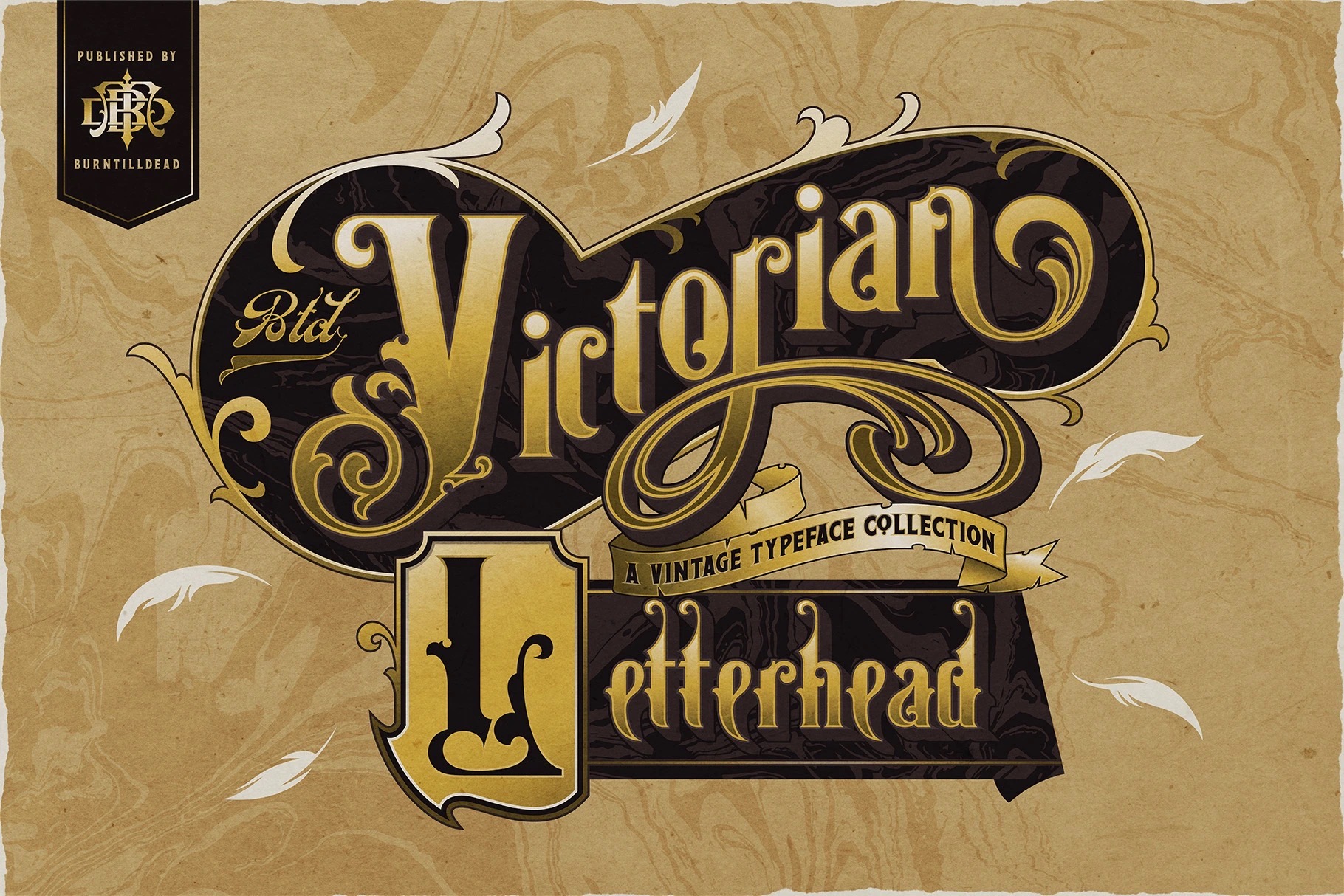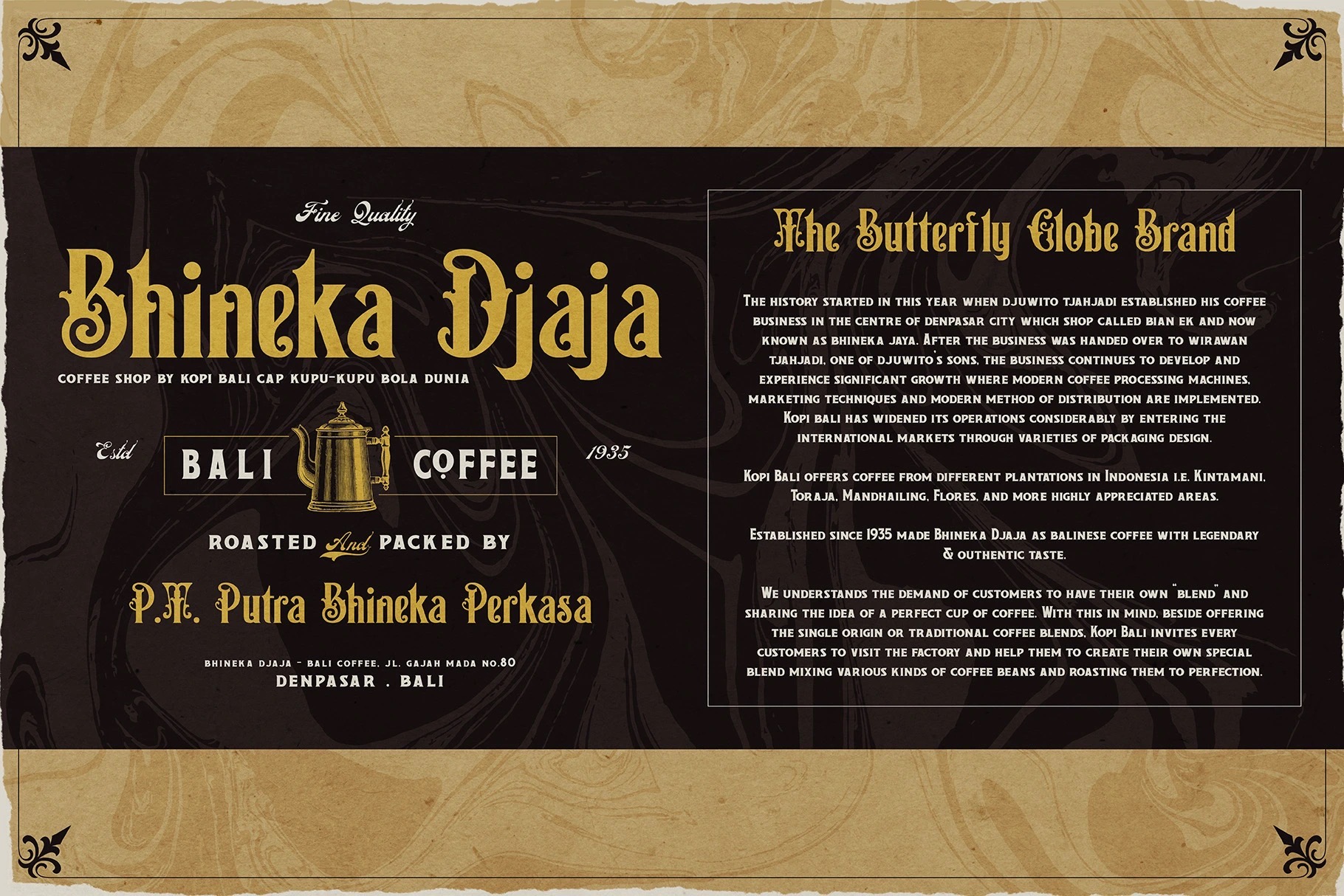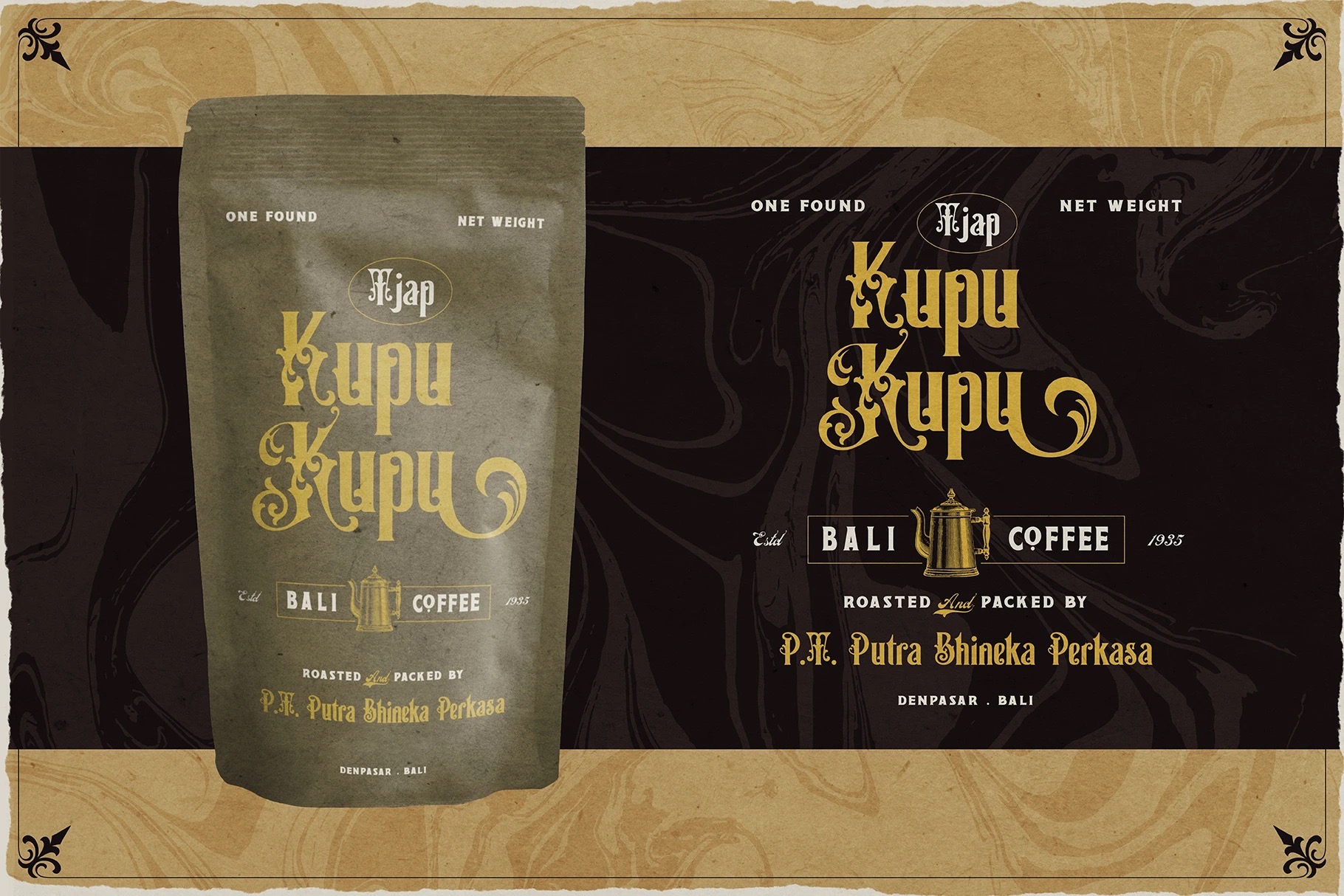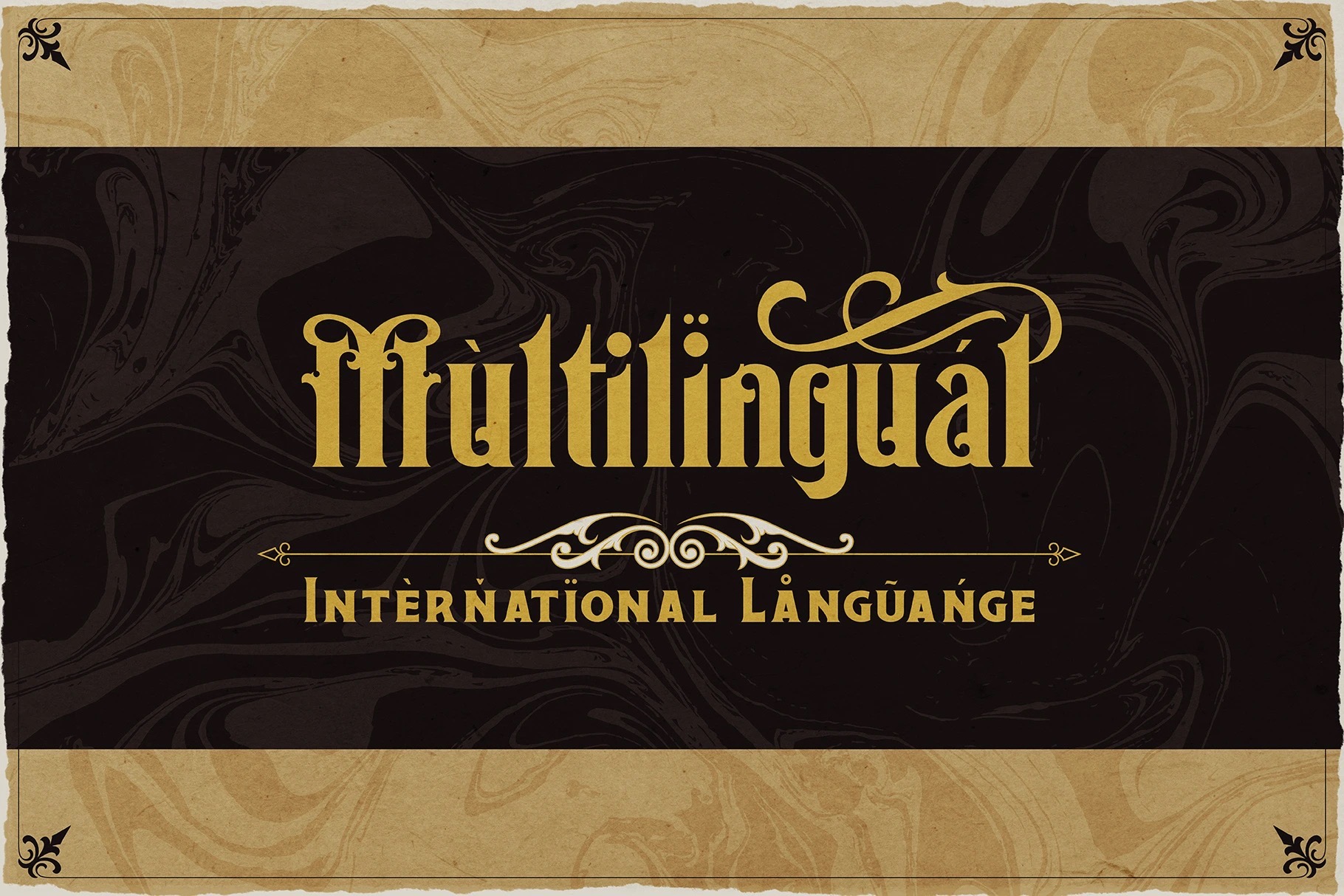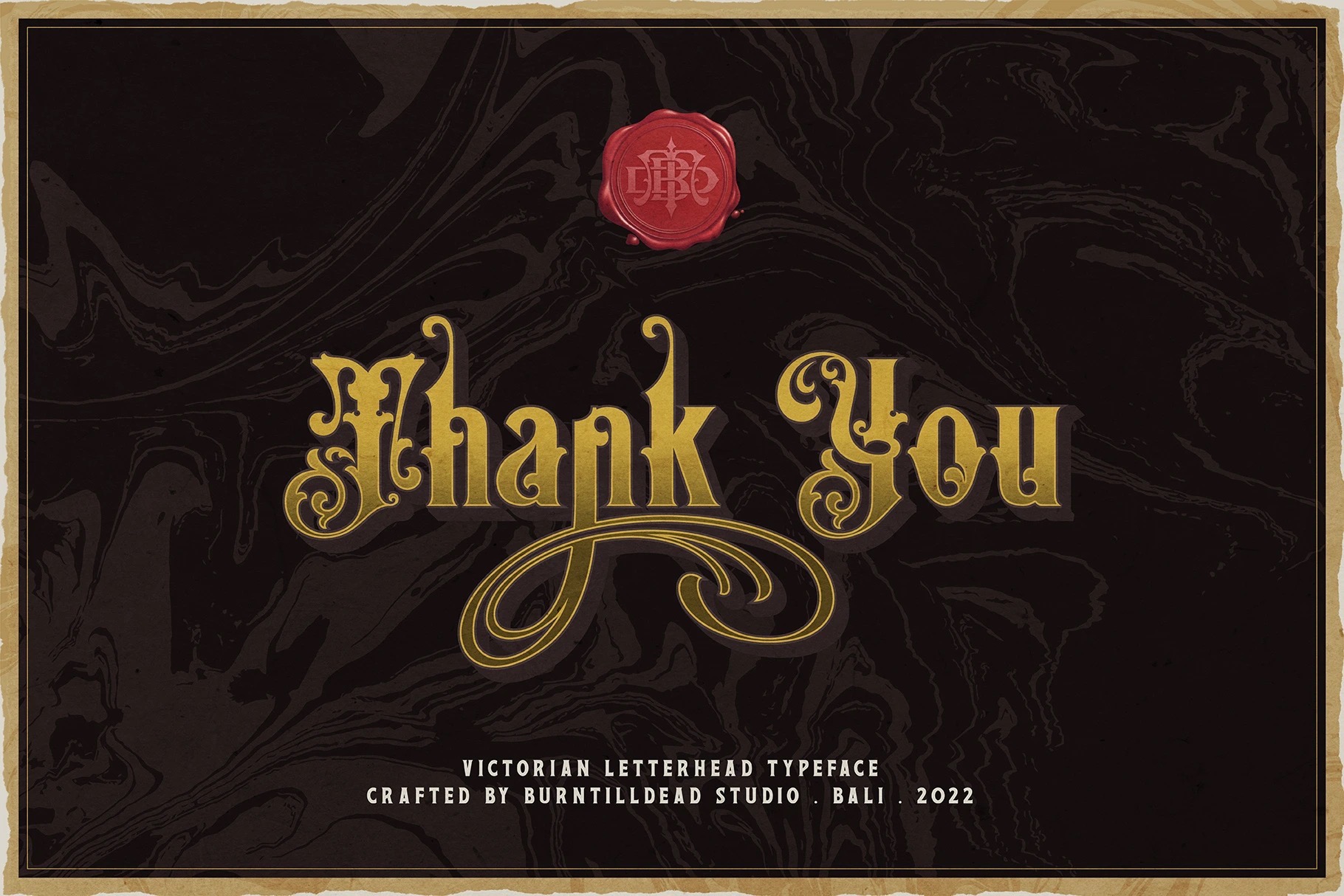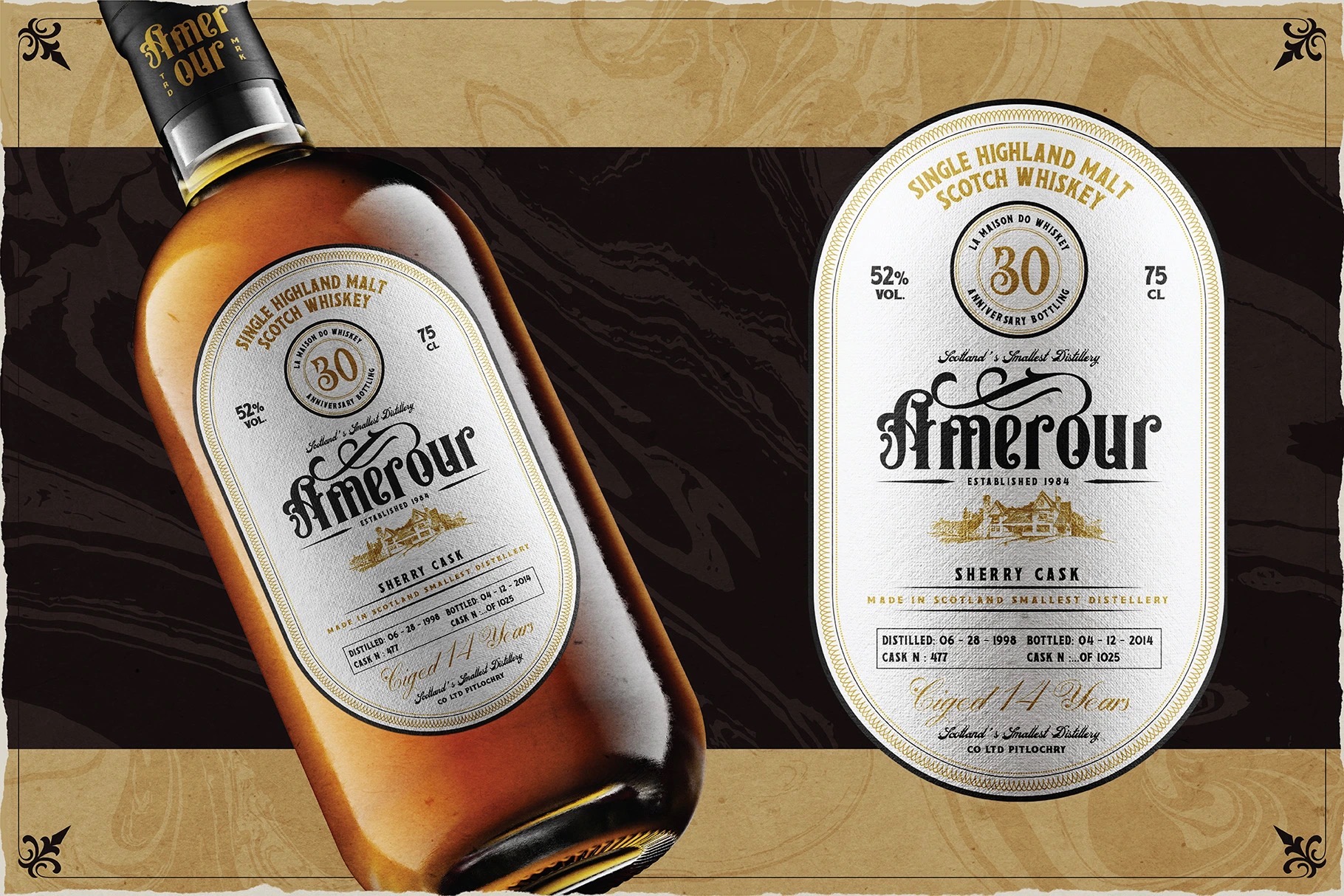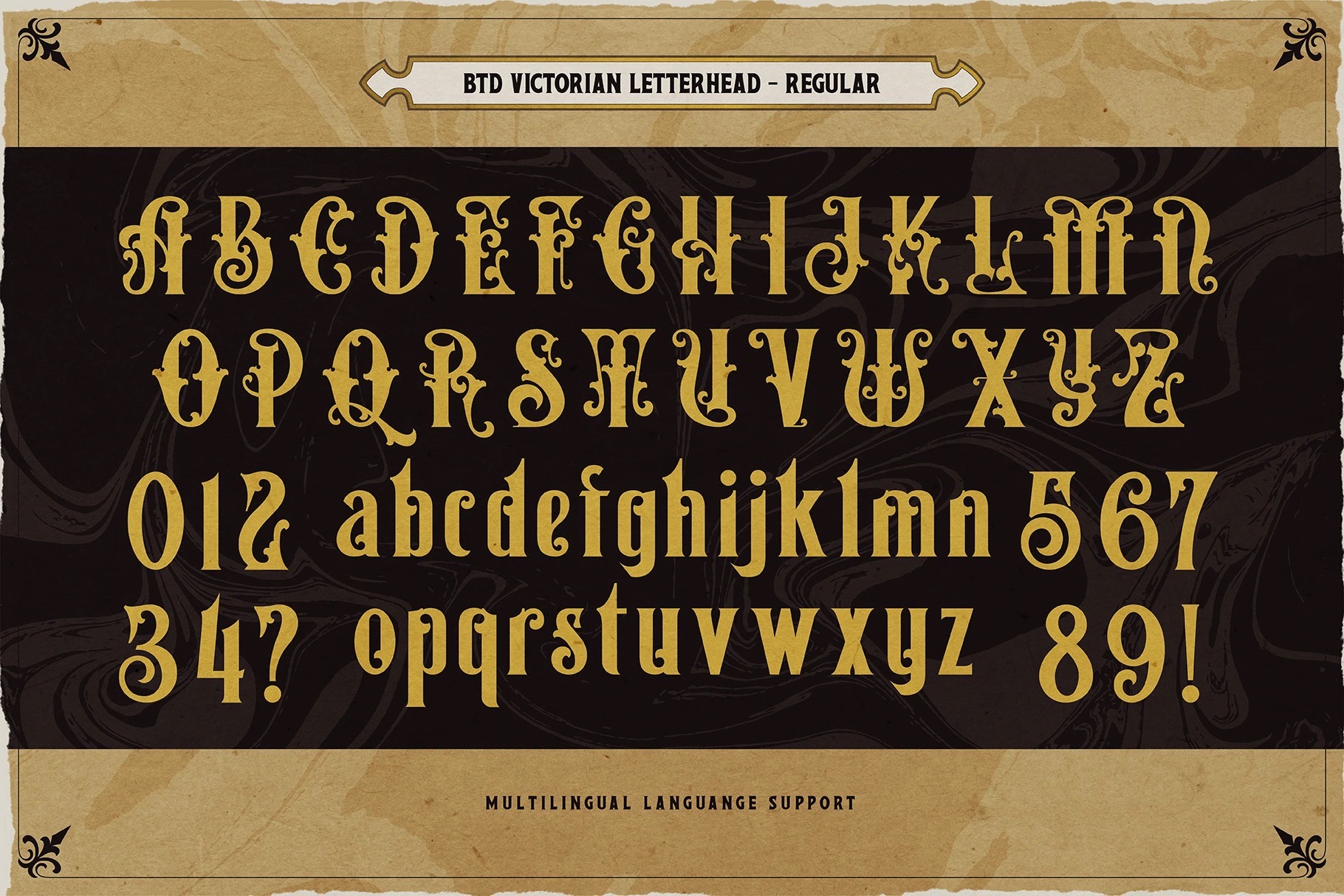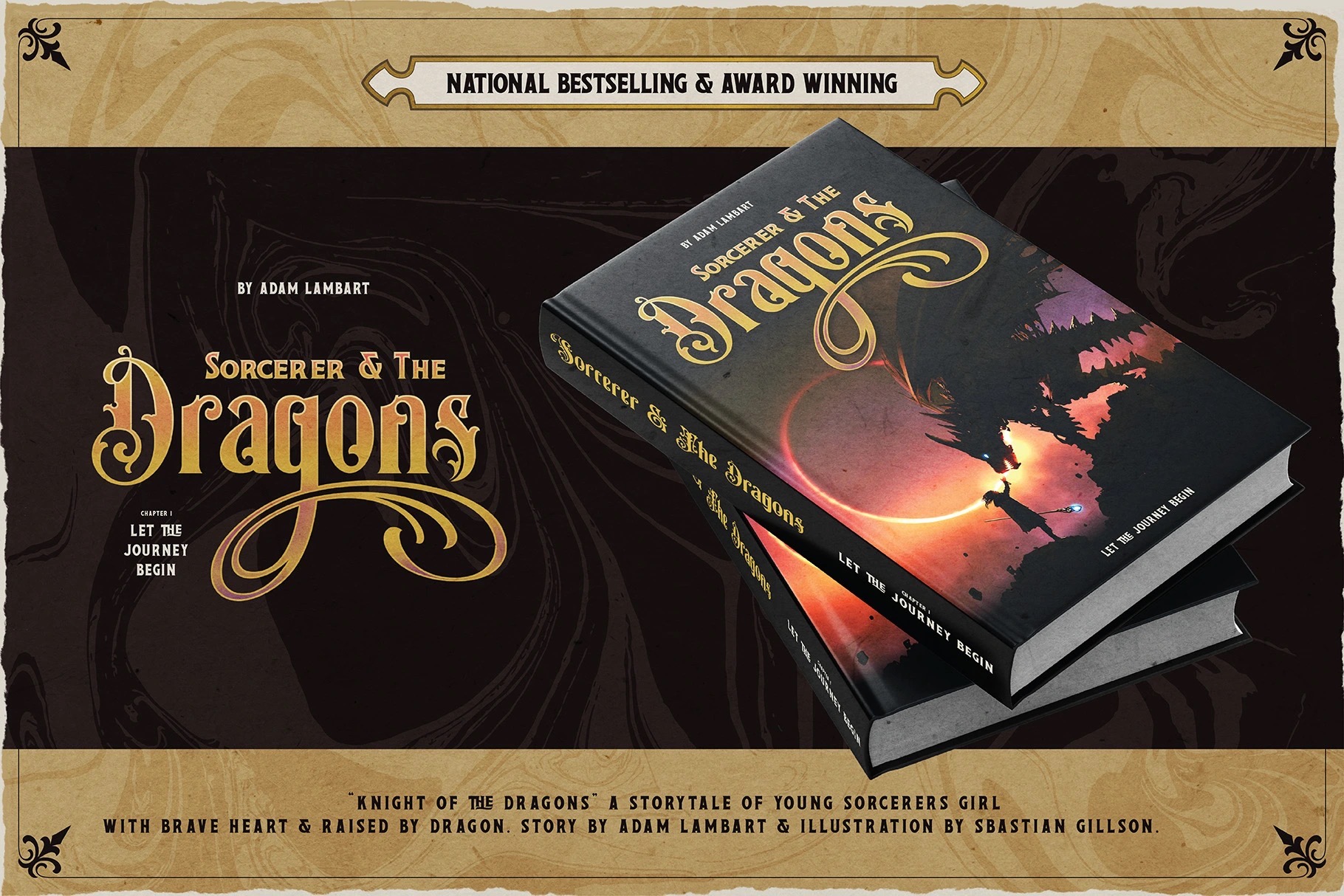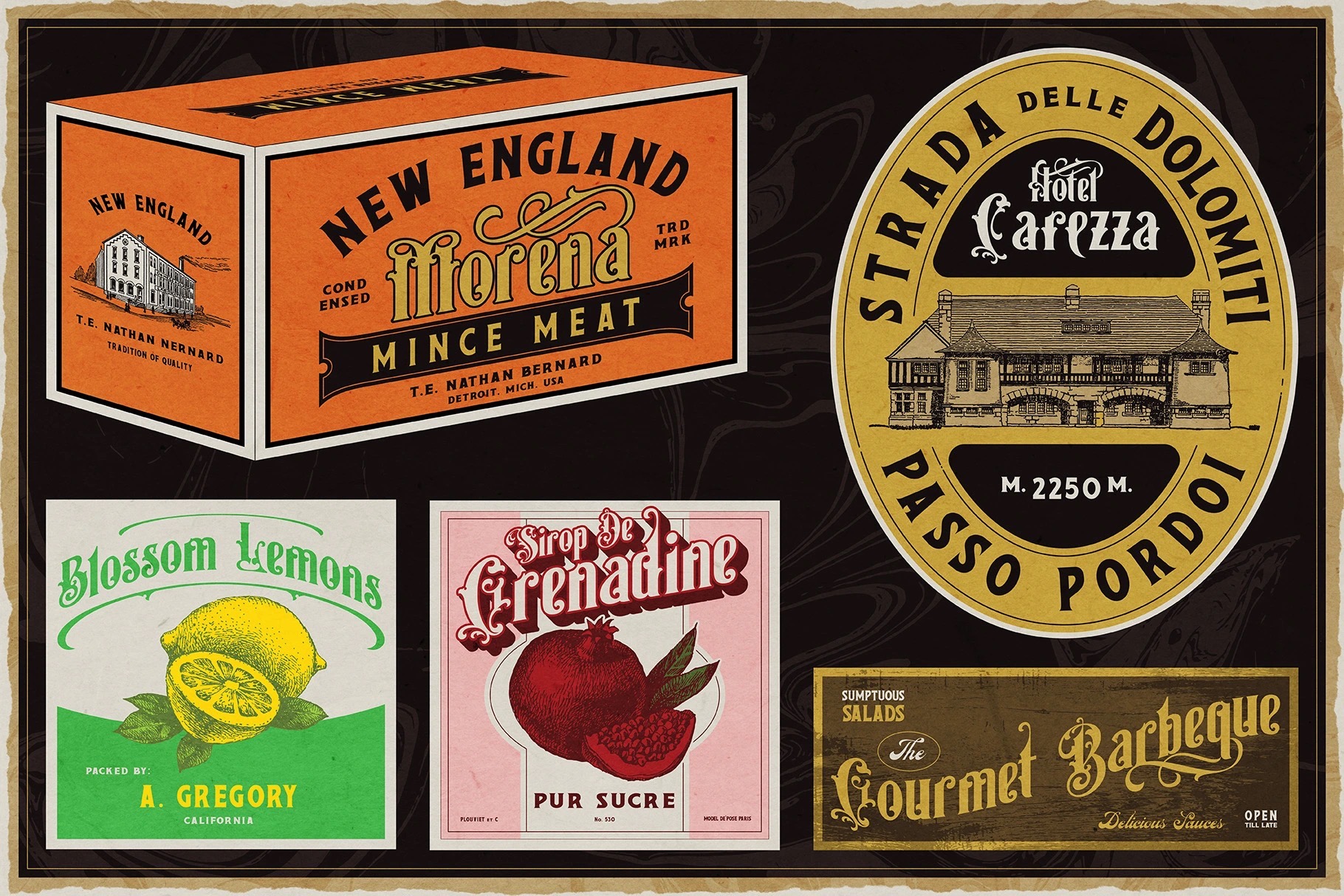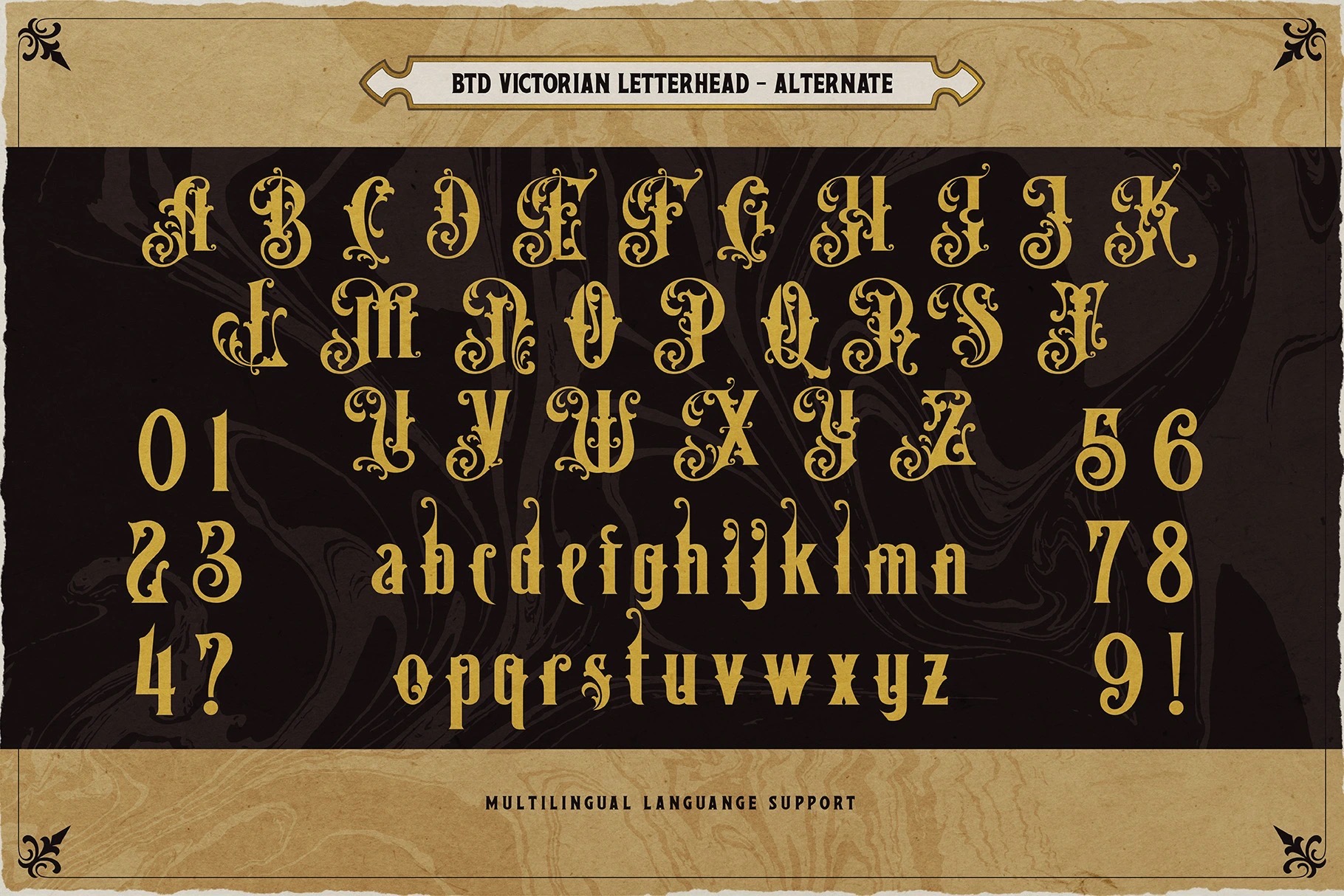
- Victorian Letterhead
Introducing Victorian Letterhead, A vintage font package with three typeface on set.
This font is inspired by vintage victorian typography designs on label & packaging, it really bring aesthetic looks and captured 19th decade moment with ornament shape.
This font package contained with; Regular style (Uppercase, lowercase, multilingual, alternate, ligature), Alternate style – more decorative form (Uppercase, lowercase, multilingual, alternate, ligature) & Serif style (Uppercase, lowercase, multilingual, alternate, ligature). These typeface combination allows you to decorate the design just by typing in your keyboard.